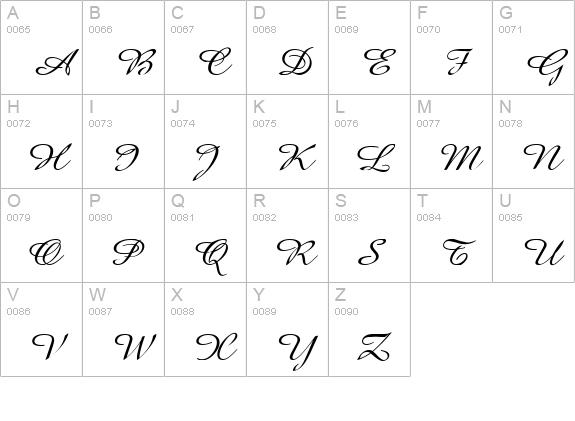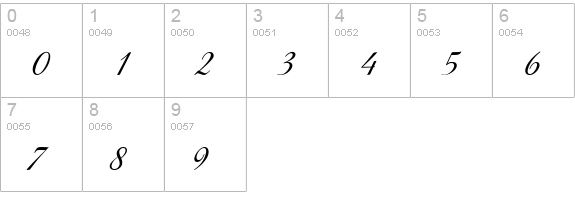
Amaze D Italic Font Details
Amaze D Italic is a distinctive, italic variant in the Amaze typeface family \xE2\x80\x94 well suited to design and typography projects.
Amaze D Italic font is a sleek and modern typeface that exudes elegance and sophistication. Its slanted, italic design adds a touch of flair and creativity to any project, making it perfect for headings, quotes, and invitations. The clean lines and smooth curves of Amaze D Italic create a sense of movement and dynamism, drawing the reader's eye and making a lasting impression. Best of all, Amaze D Italic font is completely free to download at FontsMarket.com. This means you can access this stylish and versatile font without any cost, making it a valuable addition to your font library. Whether you're working on a personal project or a professional design, Amaze D Italic font is sure to elevate your work and help you stand out from the crowd. Download it today and add a touch of sophistication to your next creative endeavor.